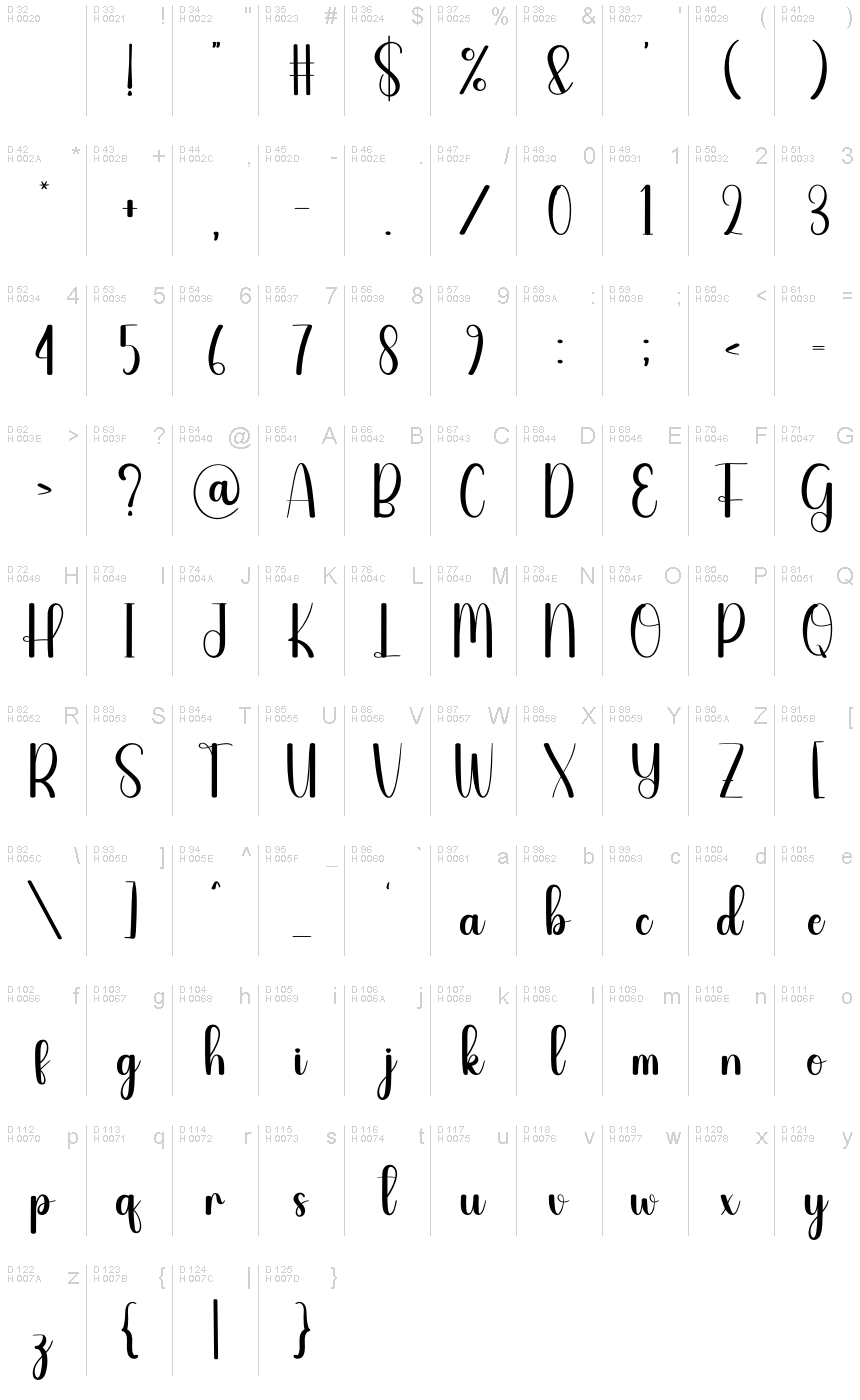
Lightrays
Lightrays by Scratchones is a font that exudes a personal touch with its handwritten style, inviting warmth and intimacy into any project. Its condensed form marries elegance with a certain playfulness, making it perfect for designs that require both charm and efficiency. The flowing strokes suggest creativity and movement, while the subtle variation in thickness adds to its organic appeal.
This font shines in contexts where a bespoke feel is paramount—think wedding invitations, boutique branding, or editorial headers where personality is key. Lightrays also lends itself beautifully to inspirational quotes and personalized merchandise, infusing every word with its distinctive handwritten essence.